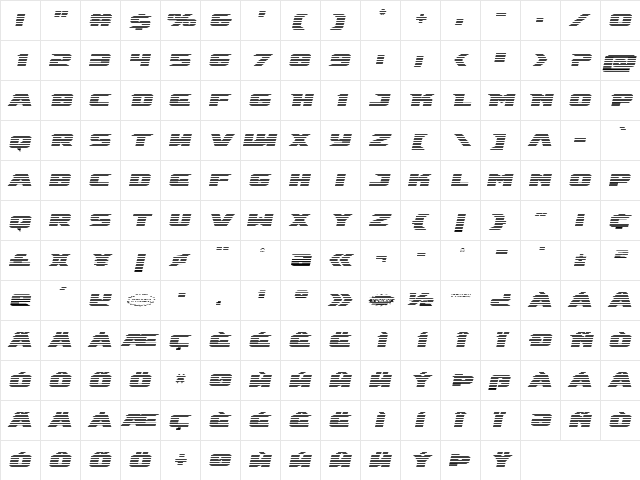
Emissary Scanlines Italic Italic
Design Context for Emissary Scanlines Italic Typeface
Emissary Scanlines Italic is a composed and adaptable typeface that performs quietly and consistently across a wide range of design contexts. Its italic angle brings a sense of urgency and motion to the letterforms.
Pro Tip: Use Emissary Scanlines Italic for emphasis, pull quotes, and subheadings where its slanted energy can add rhythm to the layout.